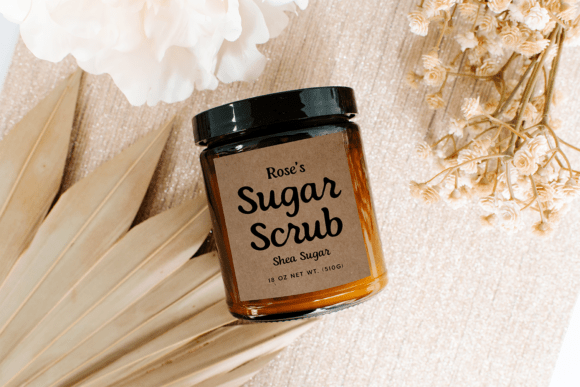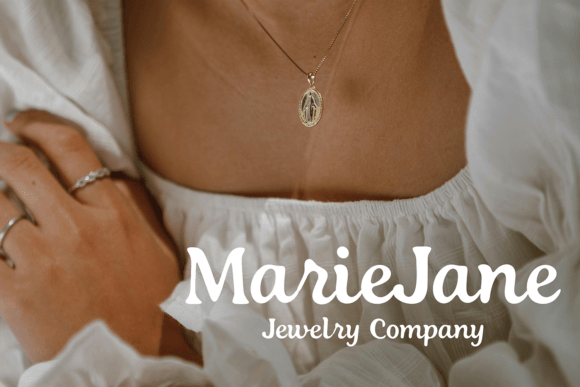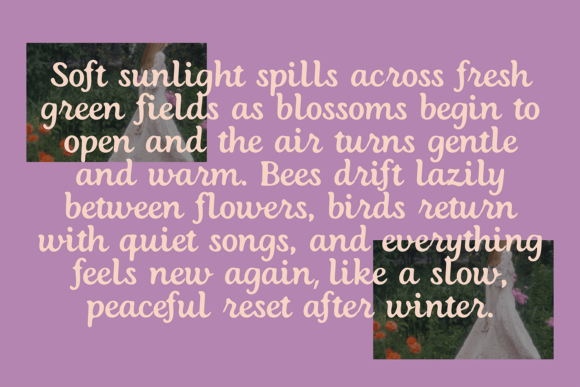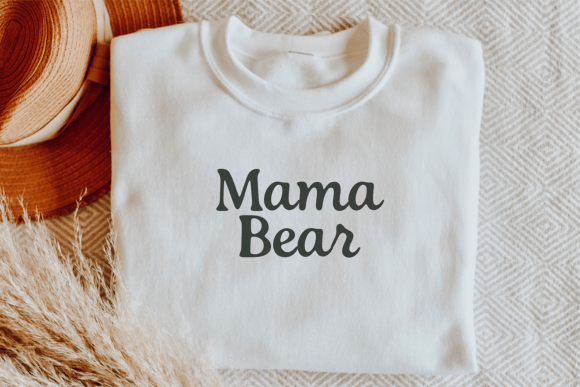
Introducing Blanche Font: Elevate Your Designs with Timeless Elegance
Are you a creative looking for a font that exudes sophistication and vintage charm? Look no further than Blanche Font, a beautiful script font designed to elevate your designs and add a touch of elegance to any project. In this article, we’ll dive into the features and benefits of Blanche Font, and explore how this stunning typeface can help you create polished, high-end designs that impress.
What is Blanche Font?
Blanche Font is a vintage elegant script font that embodies the classic feel of handwritten calligraphy. With its flowing curves, soft romantic strokes, and timeless charm, this font is perfect for creatives, small businesses, and makers looking to add a touch of sophistication to their designs. Whether you’re creating a logo, quote design, or luxury branding, Blanche Font delivers a polished, high-end look that’s sure to impress.
Key Features of Blanche Font
• Flowing Curves and Soft Strokes: Blanche Font features beautiful, flowing curves and soft romantic strokes that give it a classic vintage feel.
• Versatility: Designed with versatility in mind, this font works beautifully for both digital and physical products.
• Elegant and Sophisticated: Blanche Font is perfect for adding a touch of elegance and sophistication to any project.
• Timeless Appeal: With its classic vintage feel, Blanche Font is a timeless typeface that will never go out of style.
Who is Blanche Font for?
Blanche Font is perfect for a variety of creatives and businesses, including:
• Graphic Designers: Add a touch of elegance to your designs with this beautiful script font.
• Small Business Owners: Use Blanche Font to create a professional and sophisticated brand identity.
• Makers and Crafters: Add a touch of vintage charm to your products and packaging with this stunning font.
• Stationery and Paper Crafters: Use Blanche Font to create beautiful stationery, journals, and other paper crafts.
How to Use Blanche Font
Blanche Font is incredibly versatile and can be used in a variety of ways, including:
• Logos and Branding: Use Blanche Font to create a feminine and elegant logo that reflects your brand’s personality.
• Quote Designs: Create romantic and inspiring quote designs that feature Blanche Font’s beautiful script.
• Stationery and Packaging: Add a touch of vintage charm to your stationery, packaging, and products with Blanche Font.
• Digital Products: Use Blanche Font to create beautiful digital products, such as printable art, planners, and journals.
Why Choose Blanche Font?
With so many fonts available, why choose Blanche Font? Here are just a few reasons:
• Unique and Elegant: Blanche Font is a unique and elegant script font that will set your designs apart.
• High-Quality Design: This font is designed with high-quality and attention to detail, ensuring that it looks great in any design.
• Timeless Appeal: With its classic vintage feel, Blanche Font is a timeless typeface that will never go out of style.
In conclusion, Blanche Font is a beautiful vintage elegant script font that is perfect for creatives, small businesses, and makers looking to add a touch of sophistication to their designs. With its flowing curves, soft romantic strokes, and timeless charm, this font is sure to elevate your designs and deliver a polished, high-end look. Whether you’re creating a logo, quote design, or luxury branding, Blanche Font is the perfect choice.